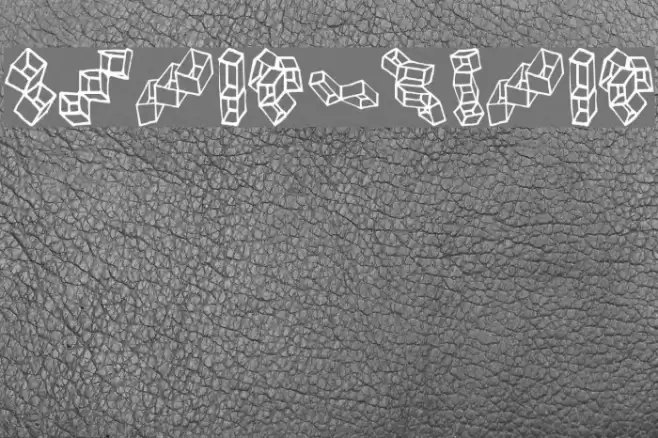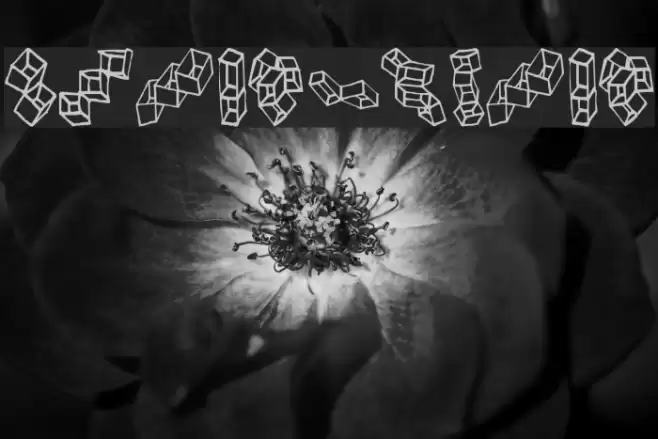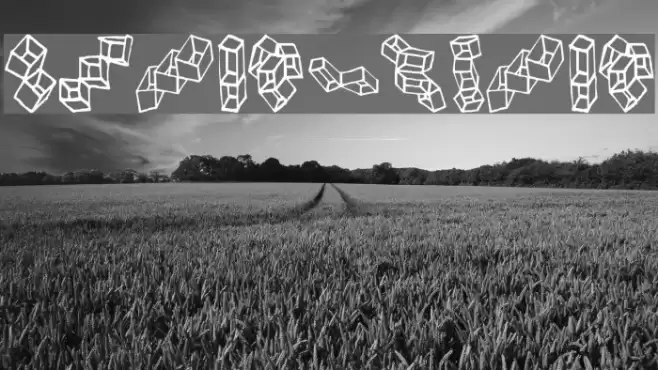
FE-BoxinaBox Font
FE-BoxinaBox Description
This font features a unique and creative design where each character is constructed from a series of interconnected cubes, giving it a three-dimensional, geometric appearance. The letters and numbers are formed by stacking and aligning these cubes in a way that maintains legibility while offering a playful and artistic look. The font's style is highly decorative, making it stand out with its intricate and abstract form. The use of negative space within the cubes adds depth and visual interest, making it suitable for projects that require a bold and unconventional typeface.
A decorative font made of interconnected cubes, offering a 3D geometric style from Uncategorized fonts.
- Proposed Projects: Ideal for creative projects such as posters, album covers, or branding that seeks a modern and artistic flair.